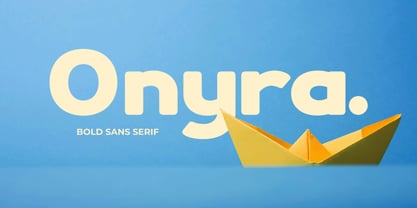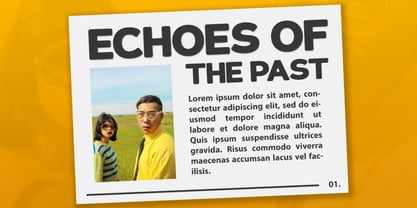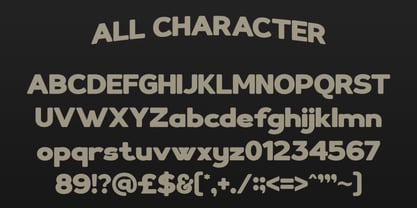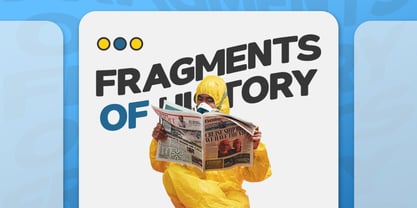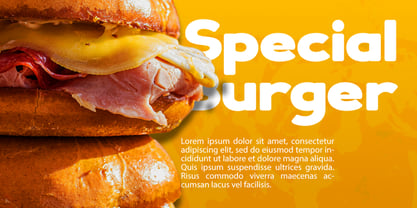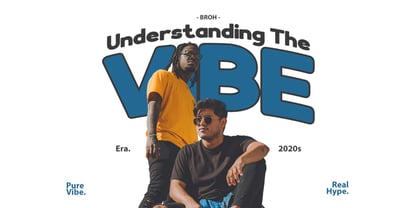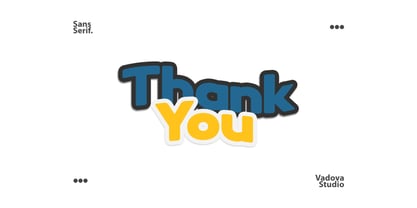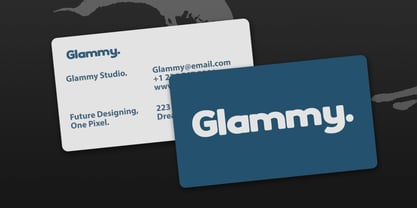
Onyra
Die Schriftfamilie Onyra entworfen und von Vadova Std veröffentlicht. Onyra enthält 1 Stile. Mehr über diese Familie
Onyra Modern Bold Sans Serif Font is a bold and rounded sans serif font designed to radiate warmth, friendliness, and clarity. With its smooth curves and geometric balance, it perfectly fits modern branding, packaging, and playful logo design. Its soft yet confident look makes it ideal for kids fonts, fun fonts, and feminine visual identities. Whether used in headlines or body text, Onyra delivers an engaging and approachable personality. A great choice for projects that seek a blend of boldness and charm. Suitable for design kids product packaging, fun branding, feminine stationery, playful logo design, modern social media graphics, food-related visuals, cartoon themes, lifestyle blogs, cute merchandise, and minimalist bold headlines, food.